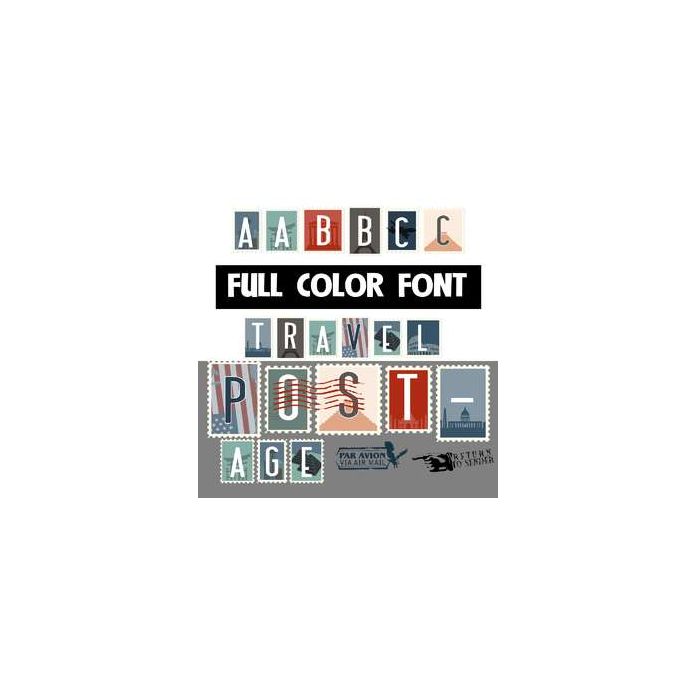
This full-color font features letters on postage stamps. You can access the postage marks seen in examples by typing +,=, and _ .This font works best for titles, displays, posters and more. Please note color fonts will show as black in non compatible programs. This font type is compatible with Silhouette Studio.